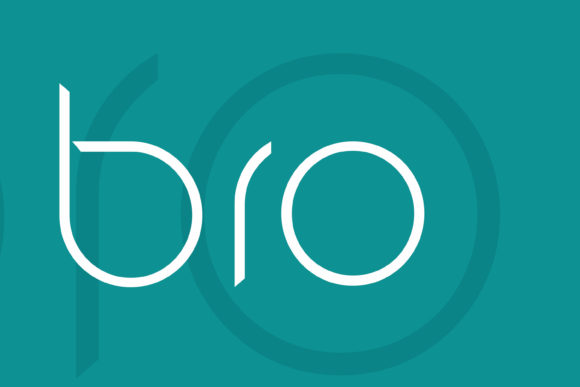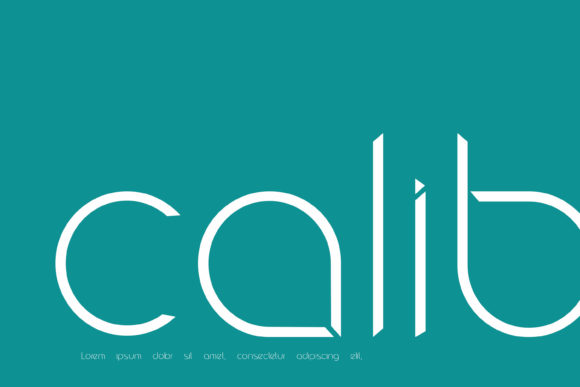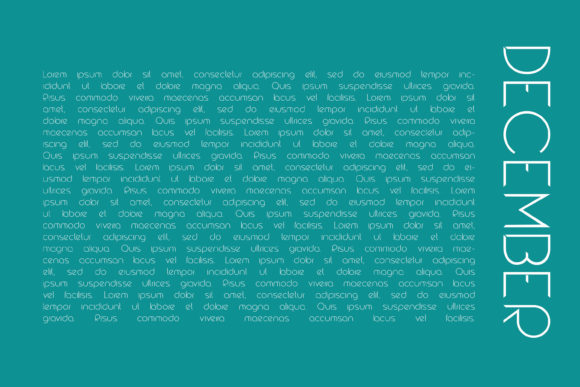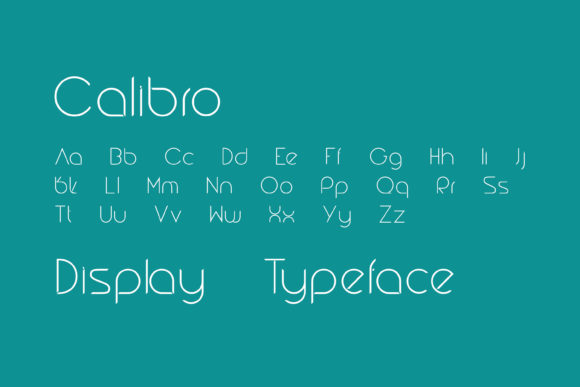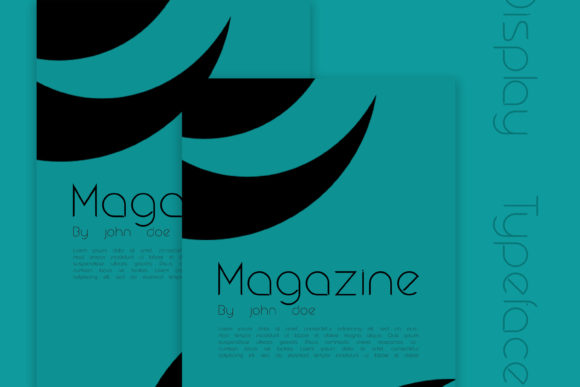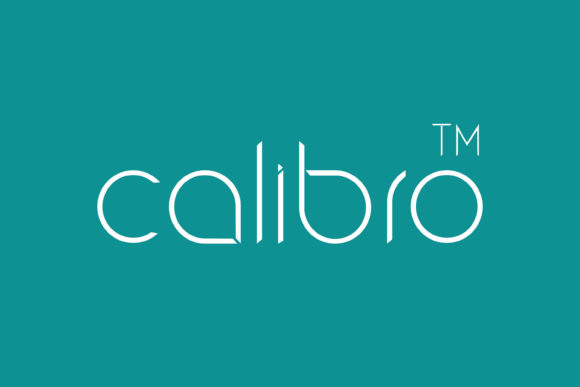
Introducing Calibro Font: Elevate Your Designs with Minimal Elegance
Are you on the hunt for a font that embodies simplicity, elegance, and versatility? Look no further than Calibro Font. This minimal and neat display font is designed to make your creative projects stand out, offering a wide range of applications across various design disciplines. In this article, we’ll dive into the world of Calibro Font, exploring its features, uses, and the unique benefits it brings to designers and crafters alike.
The Essence of Calibro Font
Calibro Font is characterized by its clean lines, minimalistic design, and exceptional readability. Its neat display style makes it an ideal choice for projects that demand a touch of sophistication and modernity. Whether you’re working on a branding project, a website, a digital application, or any print material, Calibro Font can be seamlessly integrated to add a level of elegance and professionalism.
One of the key advantages of Calibro Font is its incredible versatility. It can easily be matched with an incredibly large set of projects, making it a valuable addition to any designer’s toolkit. From:
- Branding and Logos: Use Calibro Font to create memorable and impactful brand identities that convey a sense of modernity and sophistication.
- Web Design: Enhance your website’s aesthetic appeal with Calibro Font, making your digital space more inviting and professional.
- Digital Applications: Incorporate Calibro Font into your mobile apps, games, or software to provide a consistent and elegant user experience.
- Print Materials: Elevate your business cards, brochures, posters, and more with a font that stands out yet remains effortlessly readable.
Why Choose Calibro Font?
There are several reasons why Calibro Font should be your go-to choice for your next project:
- Legibility: Its clear and neat design ensures that your message is conveyed effectively, regardless of the medium.
- Adaptability: Calibro Font adapts well to different sizes, colors, and backgrounds, making it suitable for a wide range of applications.
- Uniqueness: While minimalistic, Calibro Font has a distinct character that sets it apart from more generic fonts, giving your projects a unique edge.
- Easy to Pair: Its simplicity makes it easy to pair with other fonts, allowing for endless creative possibilities.
Tips for Using Calibro Font
To maximize the impact of Calibro Font in your designs:
- Experiment with Sizes: Play with different font sizes to create visual hierarchy and emphasize key messages.
- Color Matters: Choose colors that complement your brand and the project’s theme, but ensure the text remains highly readable.
- Mix and Match: Don’t be afraid to pair Calibro Font with other typography to add depth and interest to your designs.
Calibro Font is more than just a typeface; it’s a design tool that can elevate your projects to new heights. Its minimal yet impactful design, combined with its versatility and readability, makes it an indispensable asset for designers and crafters. By incorporating Calibro Font into your creative process, you’re not just choosing a font; you’re embracing a design philosophy that values clarity, elegance, and effectiveness. So, add Calibro Font to your creative arsenal and watch your ideas transform into standout projects that leave a lasting impression.